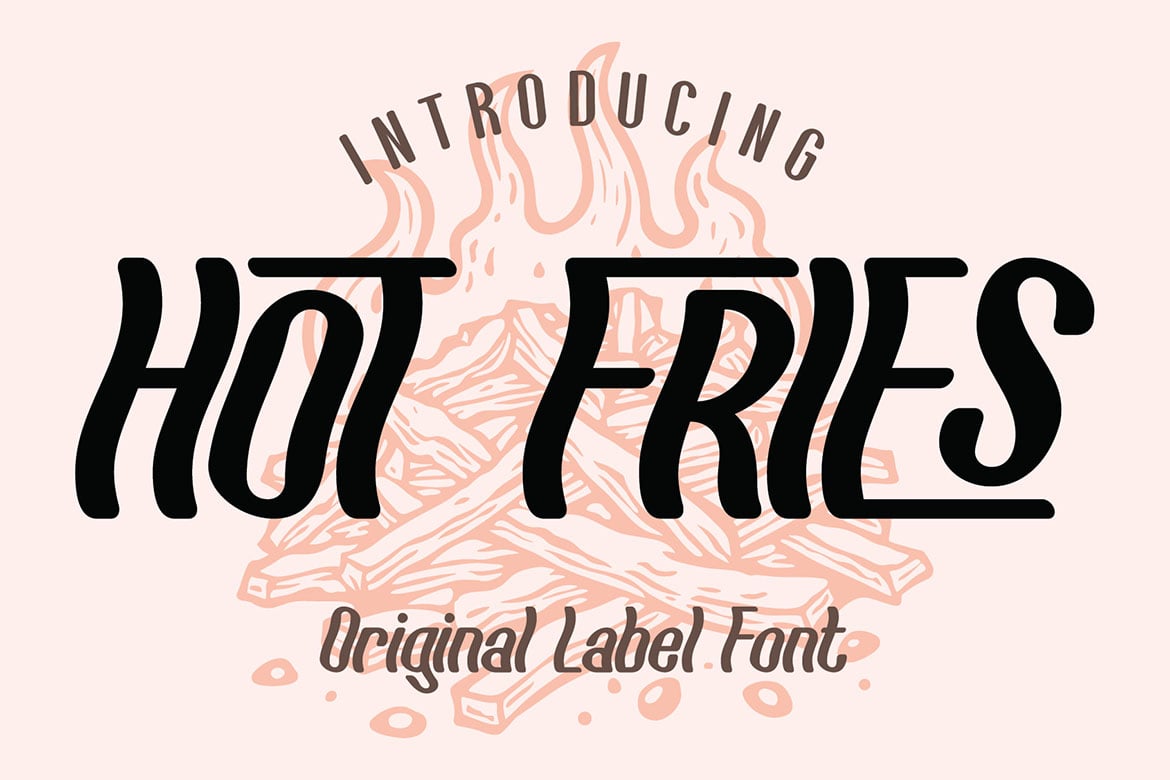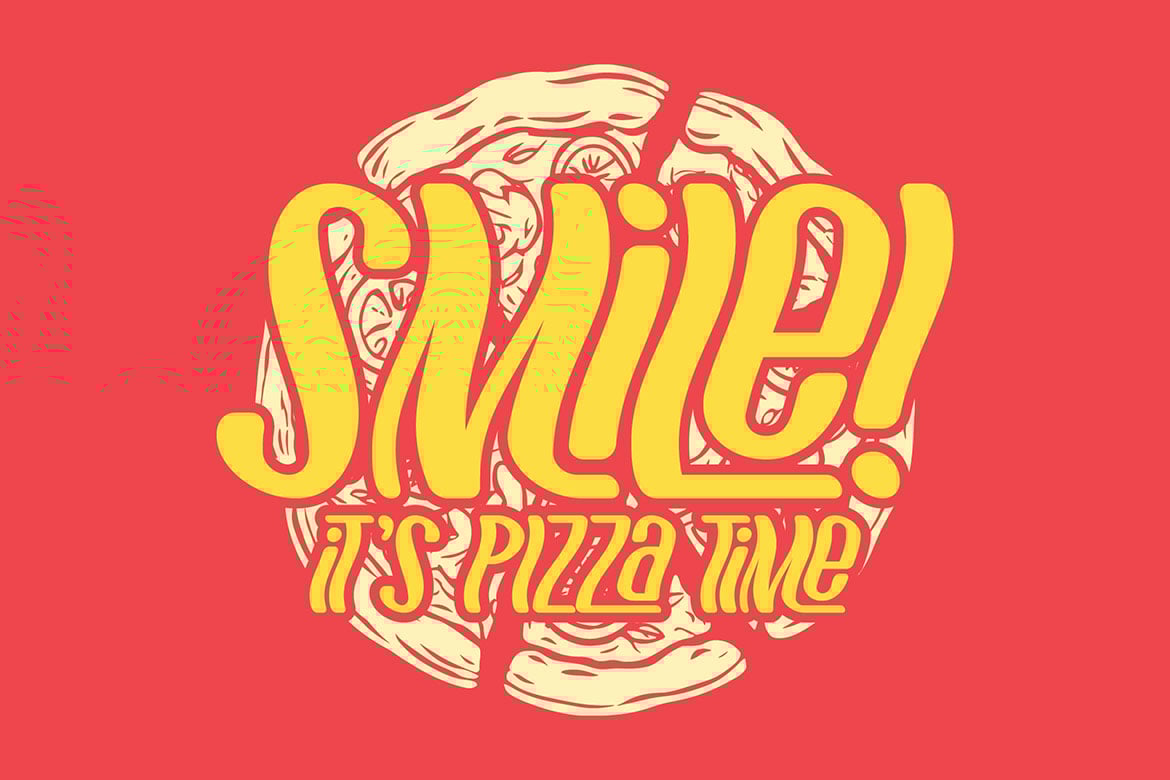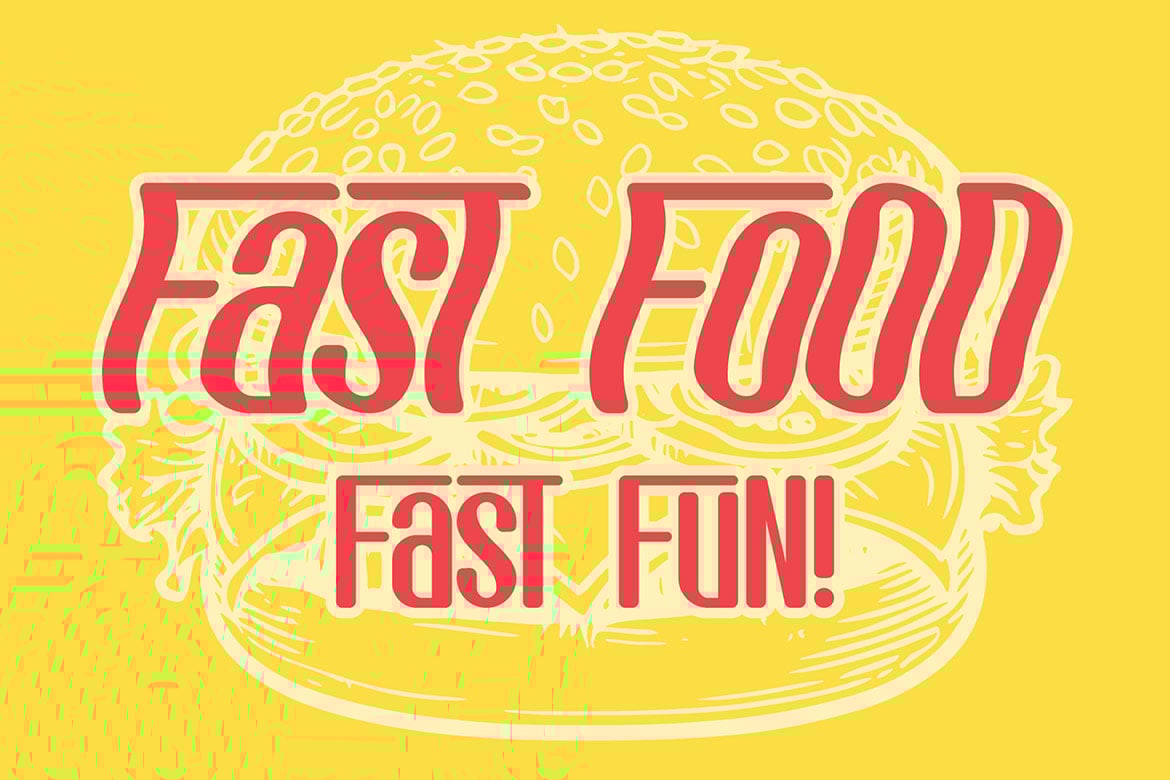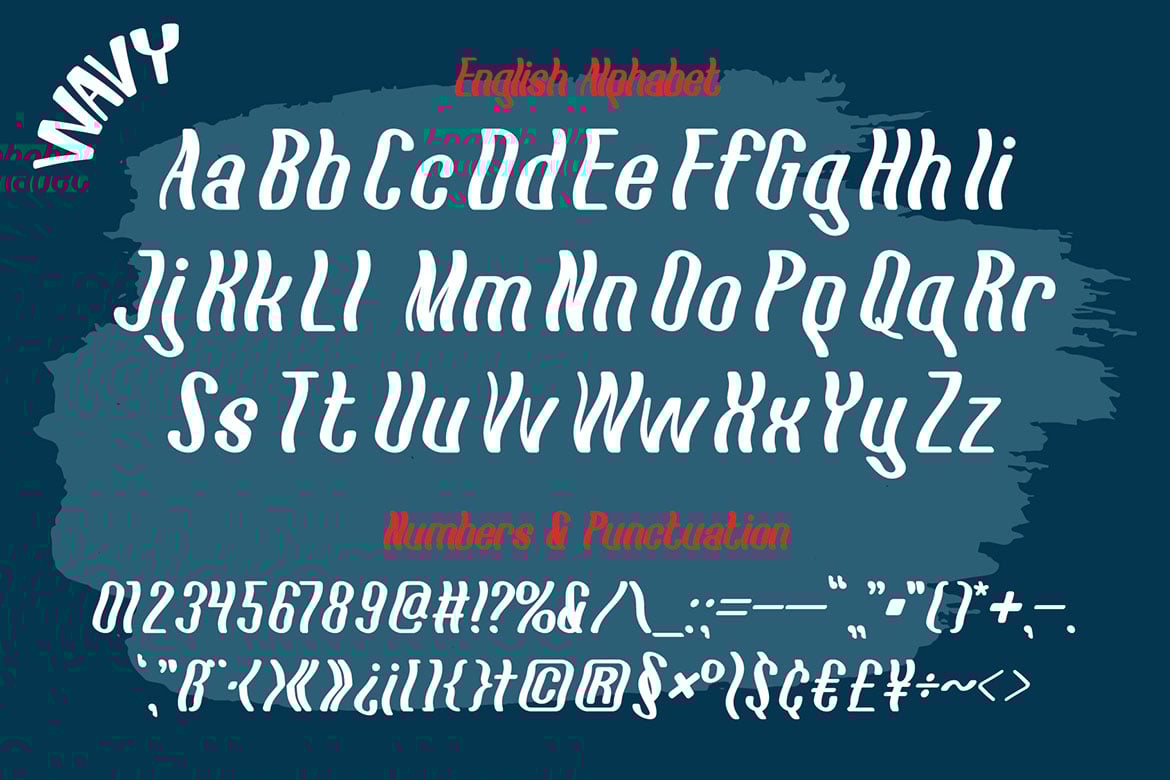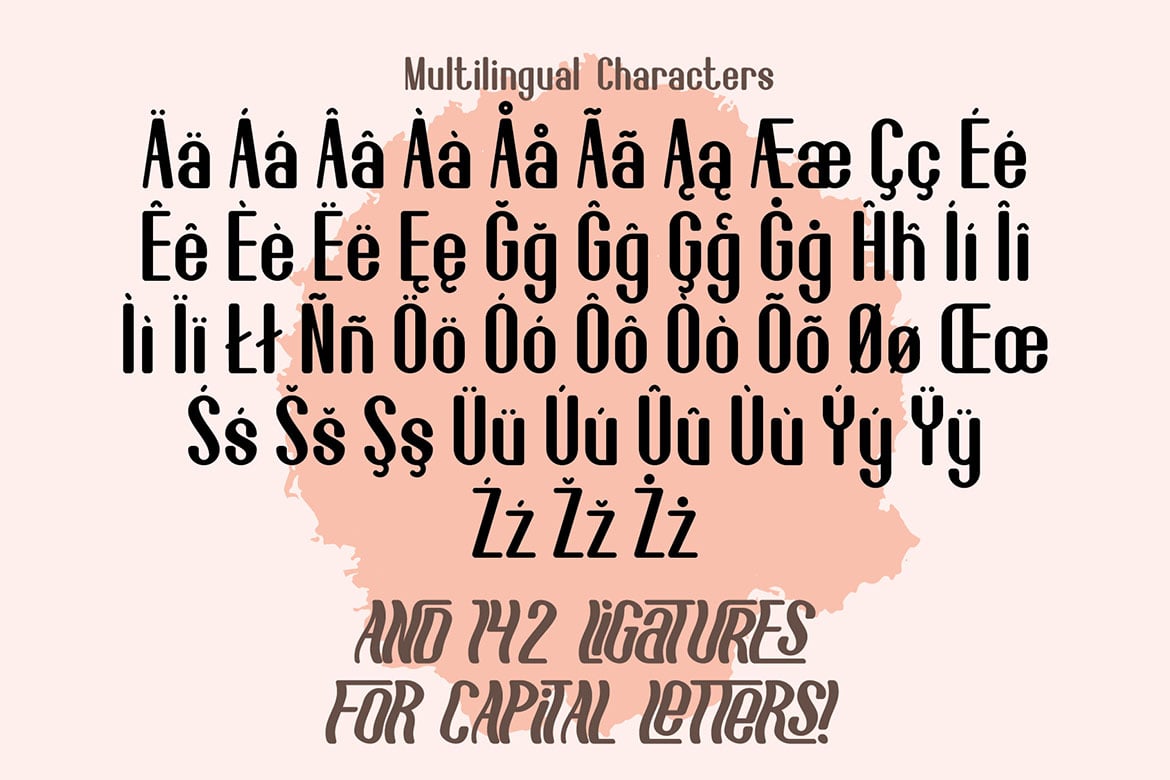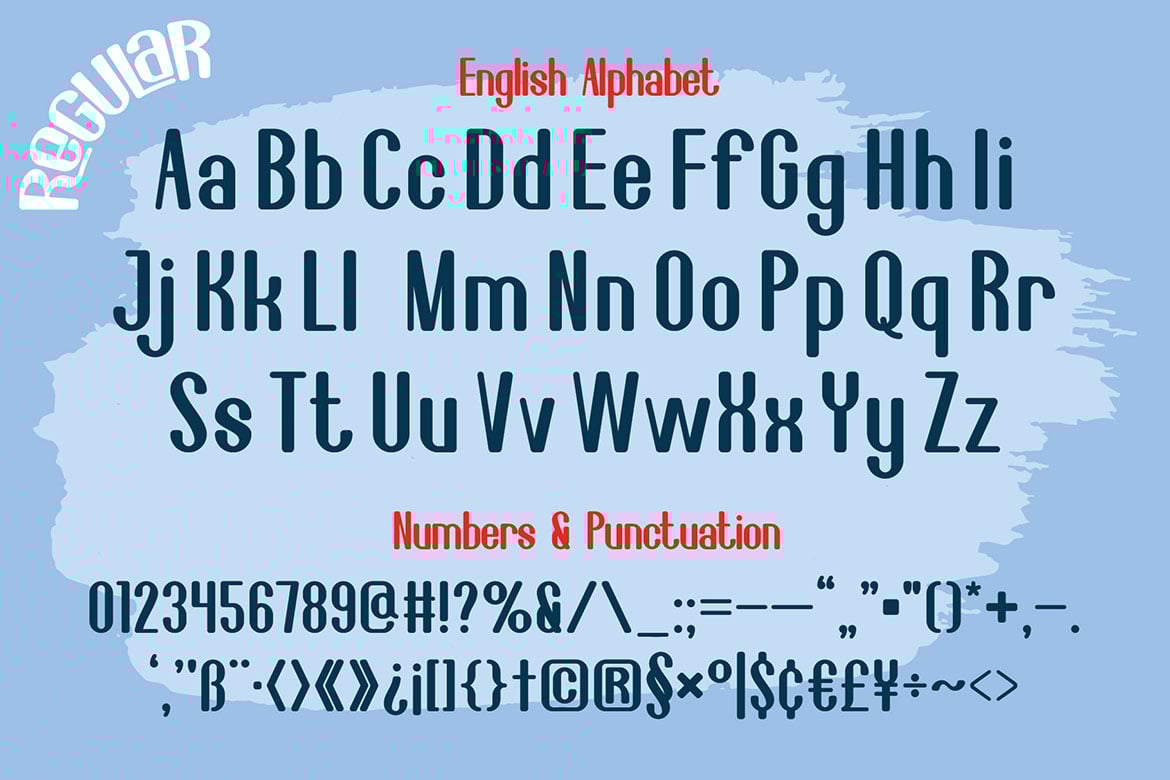
Hot Fries Unique Label Font
Unique, clean, condensed, rounded, ligature, monogram & label sans serif font. Comes with multilingual support & 142 ligatures + 2 font versions – great for your new logo, monogram or branding project.
- 2 font versions – regular & wavy
- Multilingual support & 142 ligatures
- Great for your new logo, monogram or branding project